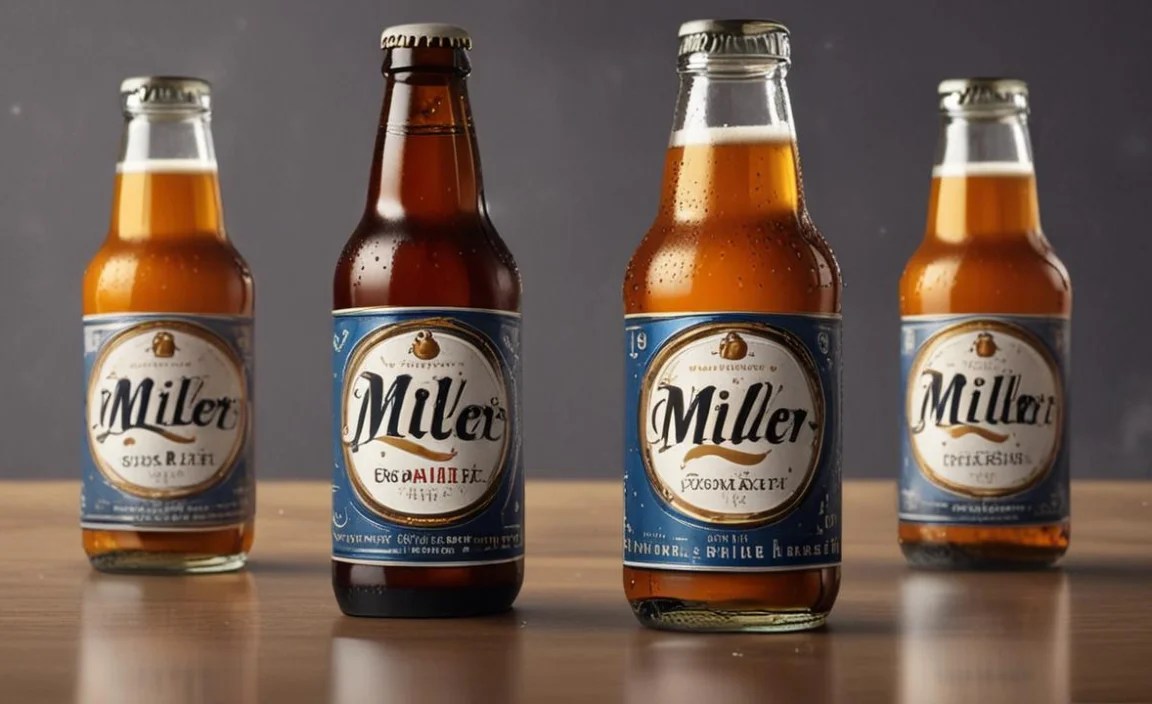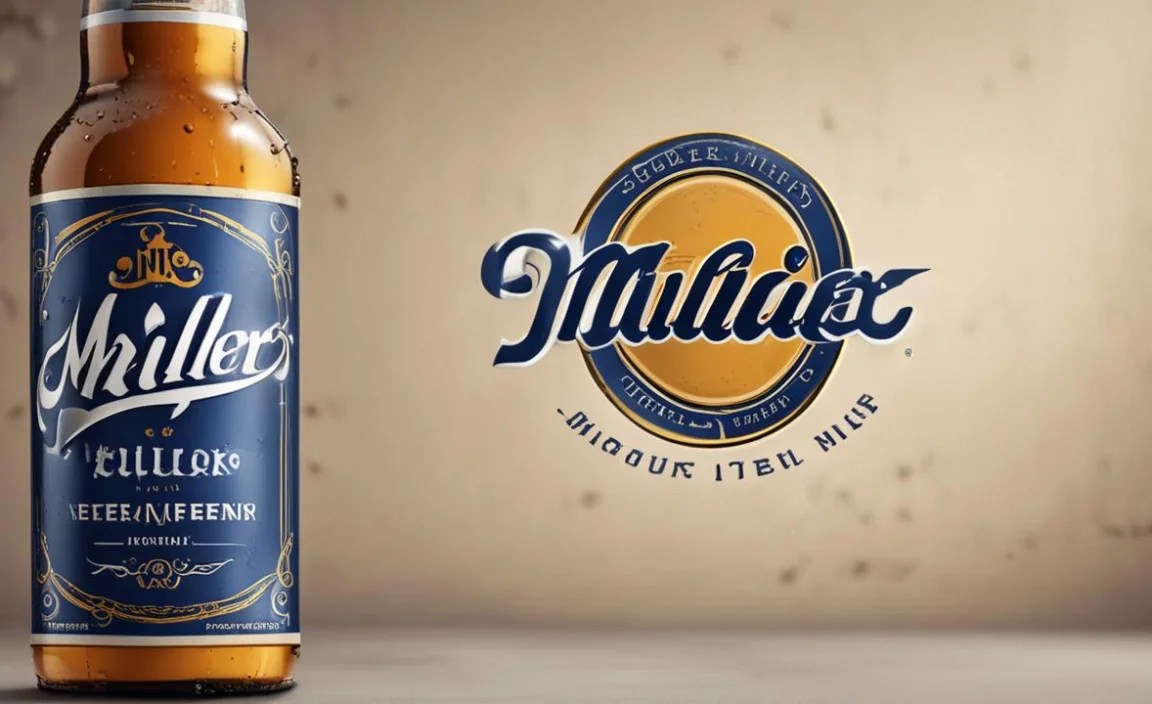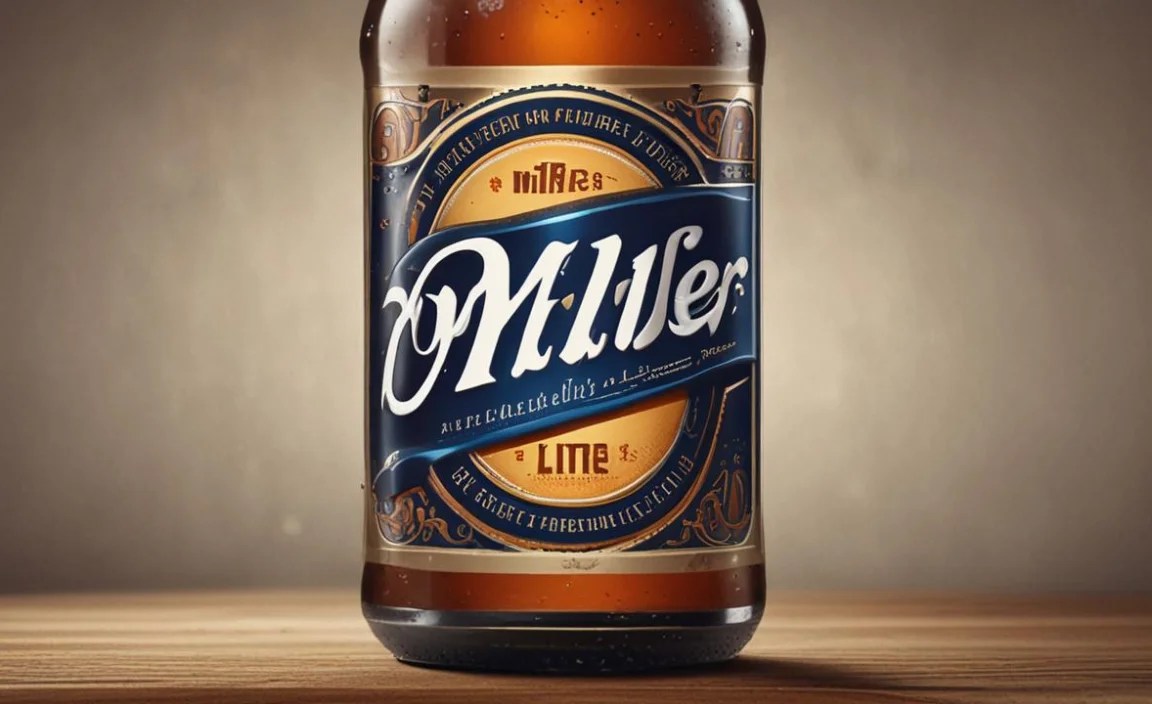
The Miller Beer Font is closely associated with the iconic branding of Miller Lite, designed by Michael Hagmann in 2005 and part of the renowned American brewery’s logo for their light beer.
This font is a popular choice among designers for its bold script style that resonates with Miller Lite’s identity under the Molson Coors Beverage Company.
| Name | Miller Beer Font (also known as Miller Lite Font) |
| Style | Script |
| Designer | Michael Hagmann |
| Type | Modern Script Typeface |
- Miller Lite Regular
Where The Miller Beer Font Is In Use:
- Logo Design: Often used in branding and logo designs, especially for beer-related logos.
- Marketing Materials: Ideal for marketing Miller Lite and similar brands with a vintage appeal.
- Social Media Graphics: Works well for social posts that need a bold and stylish script.
- Merchandise: Common on merchandise like T-shirts, hats, and promotional items.
- Event Posters: Great for posters, especially those celebrating beer festivals or American brewing events.
1.What Font Is Used For “LITE” In Miller Lite’s Logo?
The Miller Lite logo uses a custom font similar to Colonna MT for the “LITE” text.
2.Who Designed The Miller Beer Font?
Michael Hagmann designed this typeface in 2005 for Miller Lite.